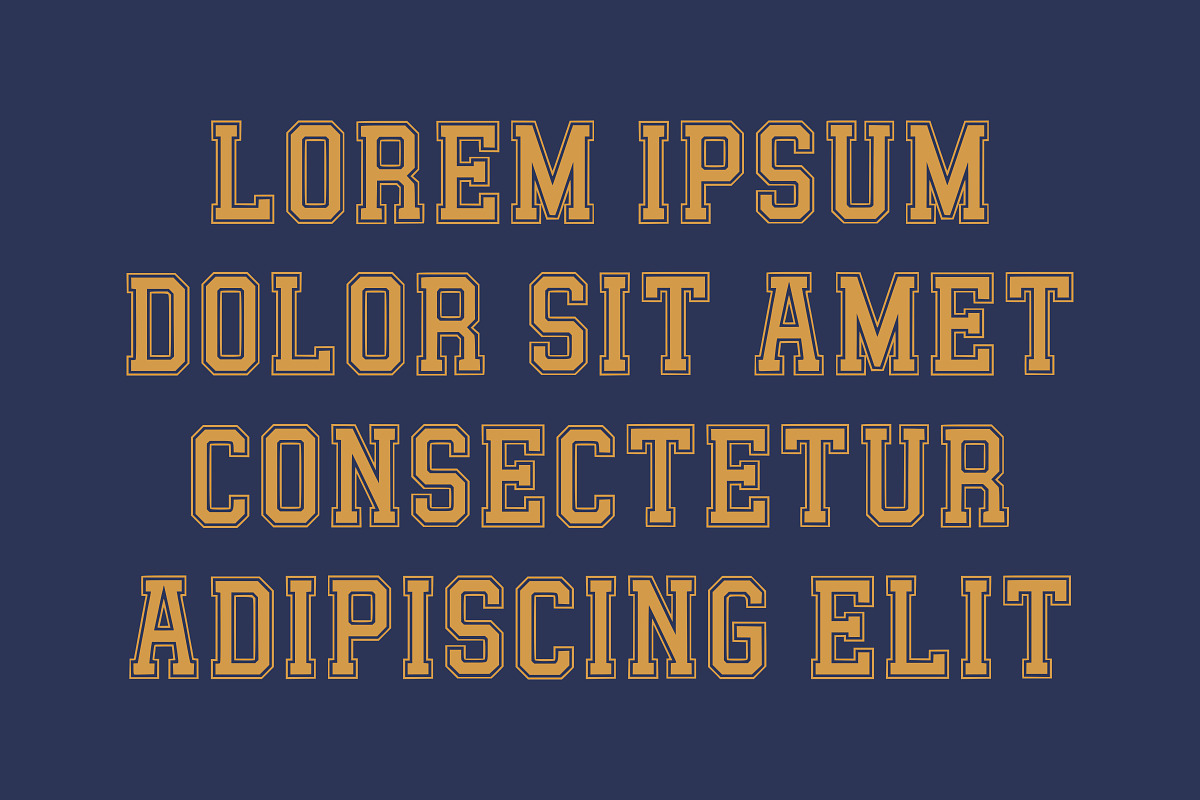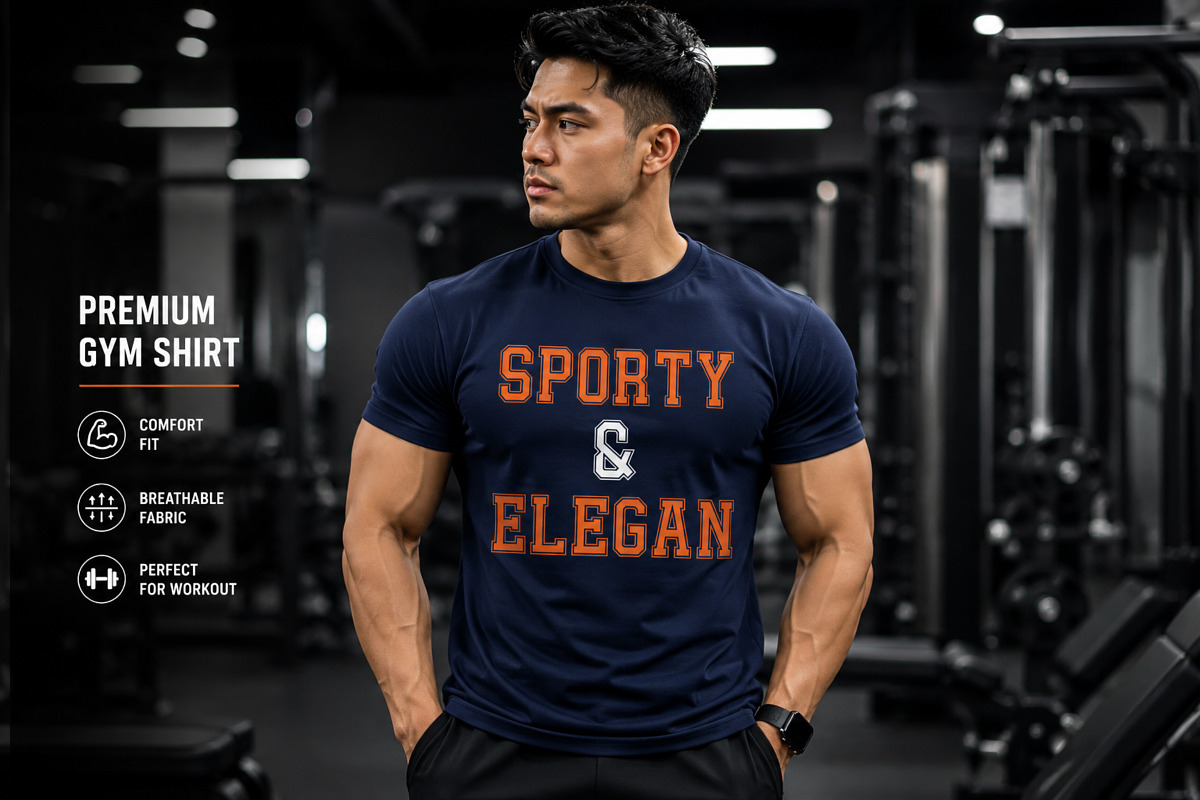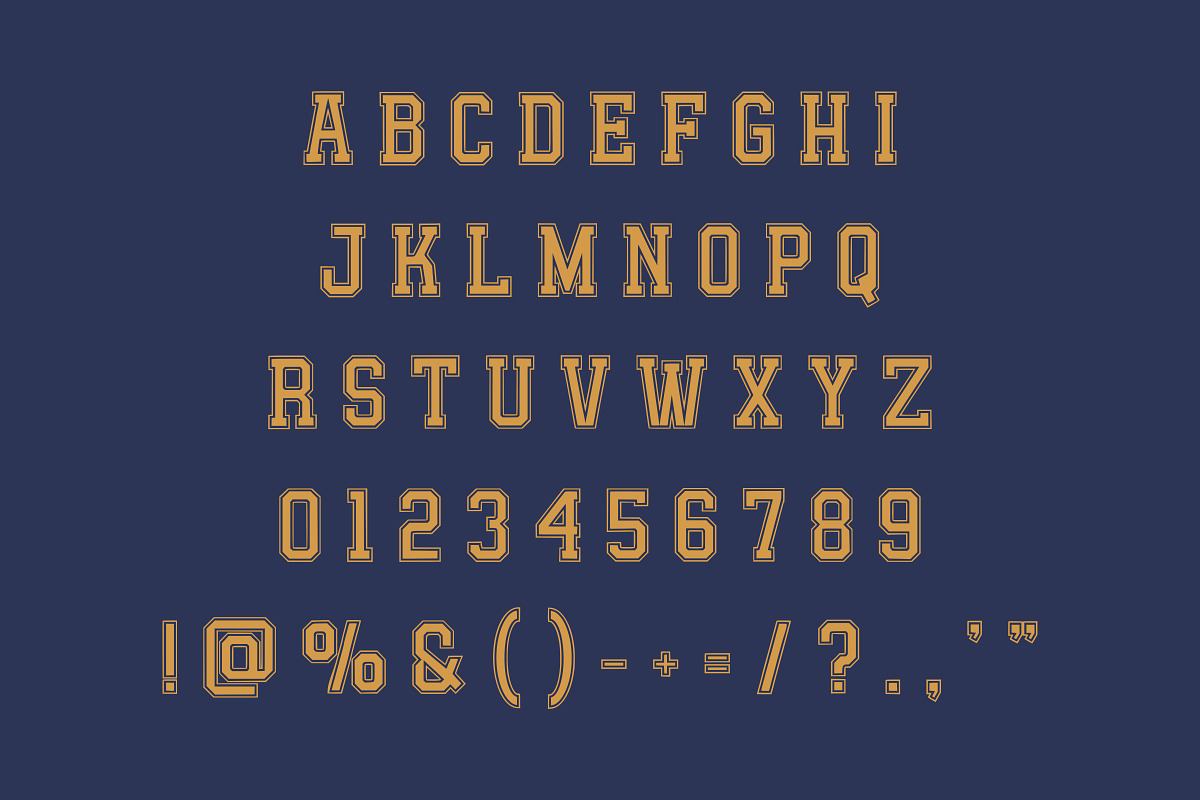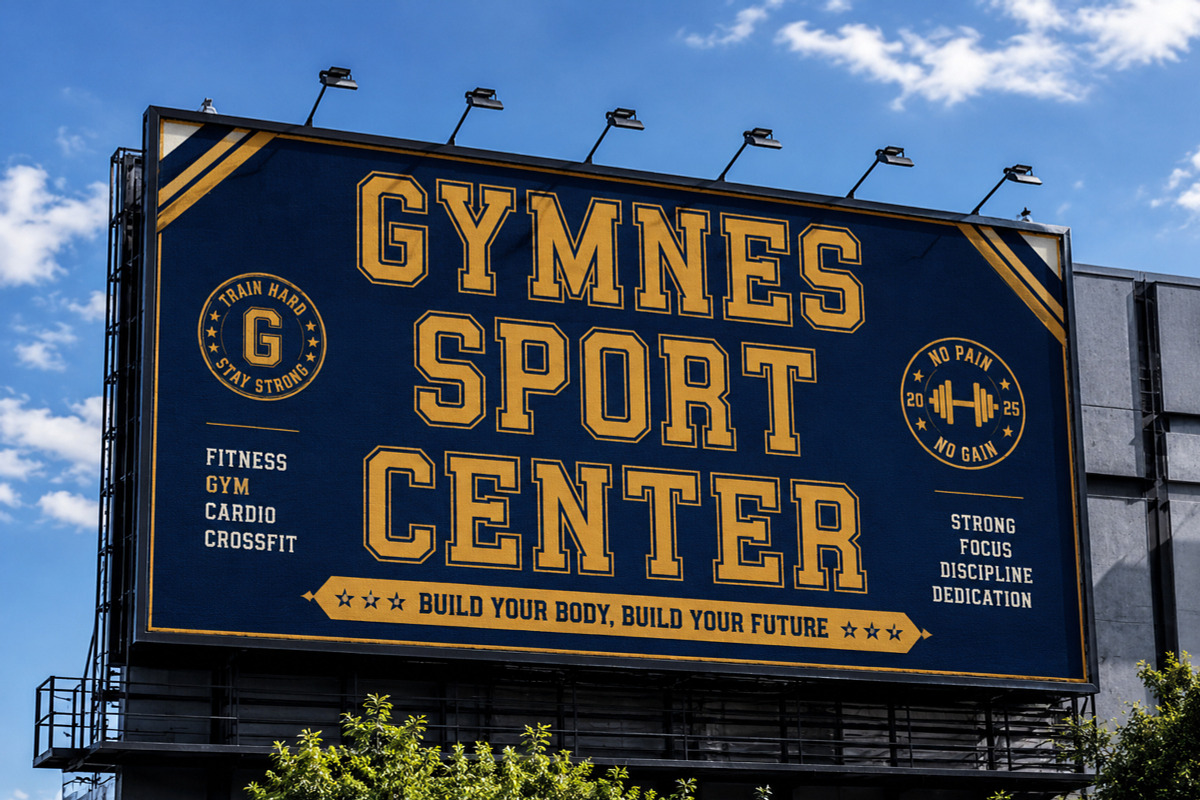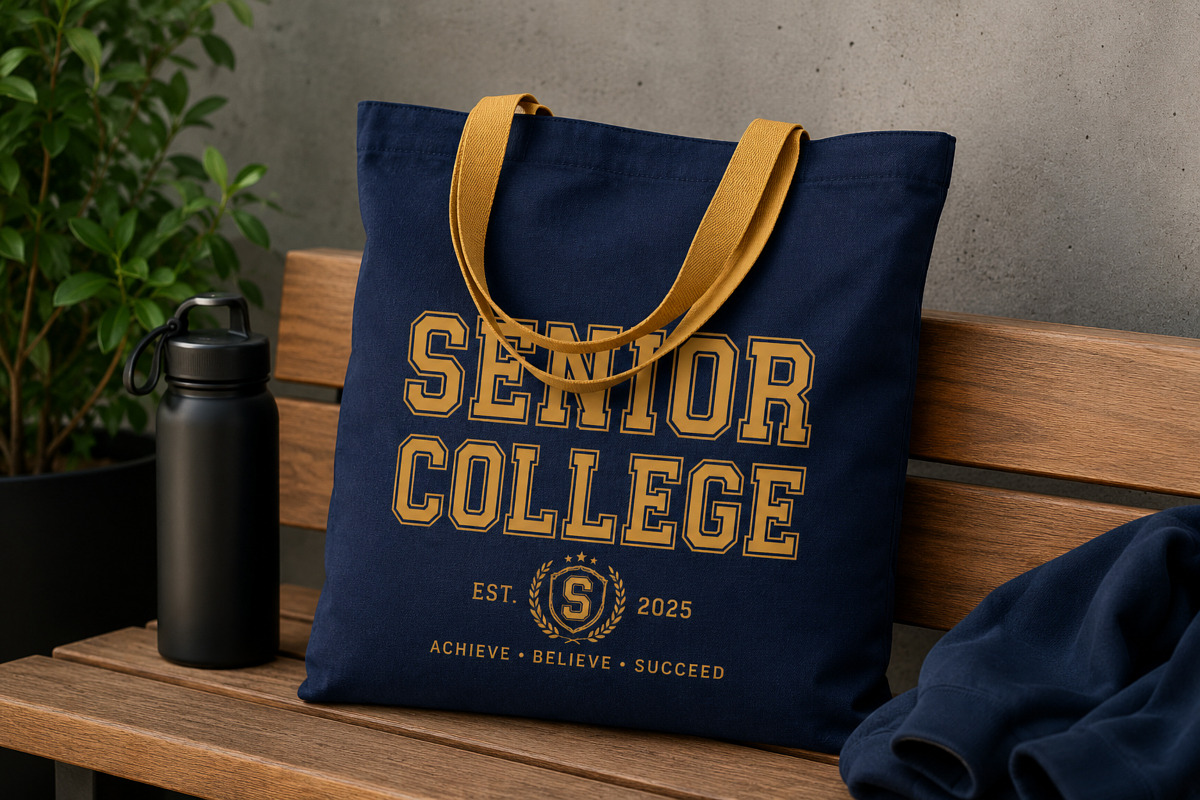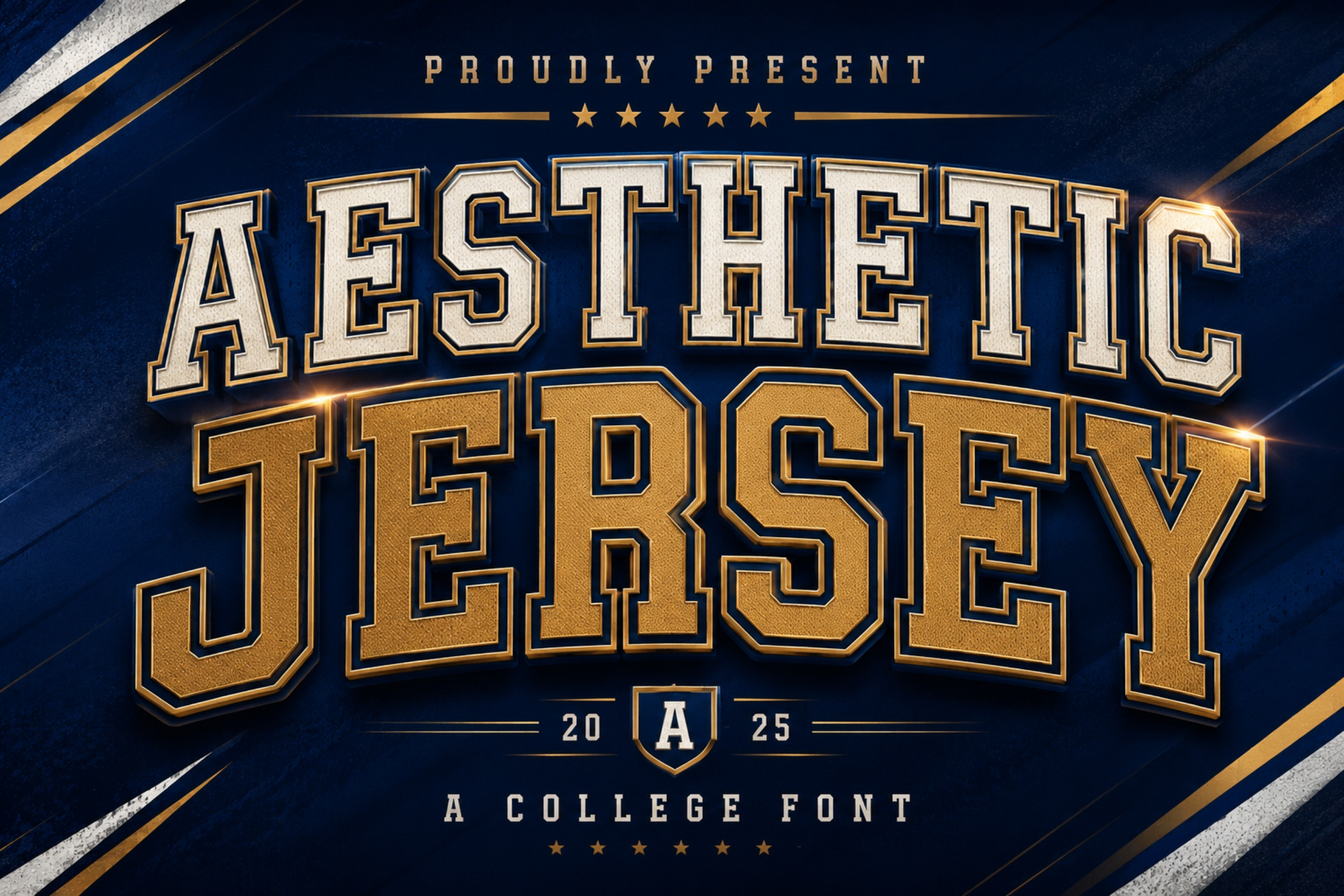
Aesthetic Jersey – Bold College Font
Bring the spirit of classic collegiate sports to your designs with Aesthetic Jersey, a premium varsity display font crafted for bold and impactful typography.
Inspired by traditional American football, baseball, basketball, and university lettering, this font features powerful geometric letterforms with authentic athletic styling. Whether you're creating sports logos, jersey numbers, school branding, team merchandise, esports graphics, or vintage-inspired apparel, Aesthetic Jersey delivers a professional championship look.
Ideal for:
Sports team logos
College & university branding
Football, baseball & basketball jerseys
Esports branding
Athletic apparel
Posters & banners
T-shirt designs
Vintage sports graphics
Social media sports content
Uppercase Characters
Bold Varsity Style
Classic College Look
Vintage Athletic Design
Clean Geometric Letterforms
High Readability